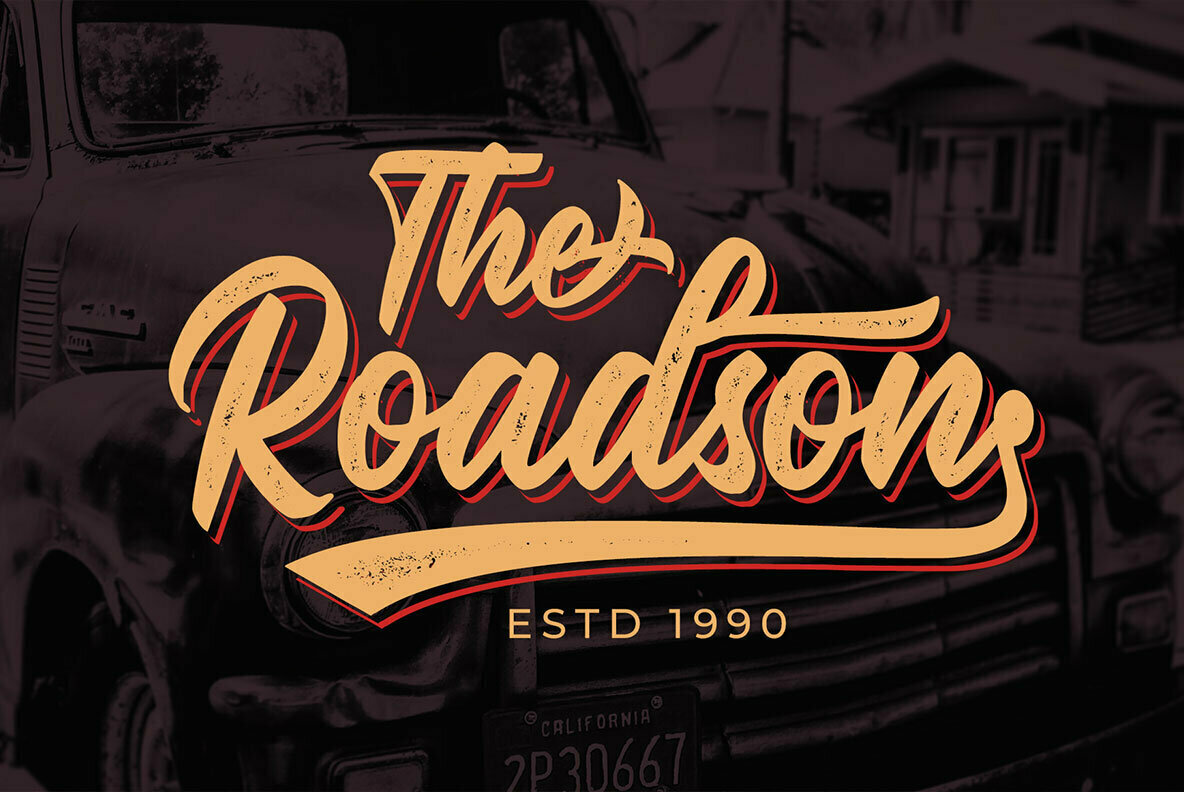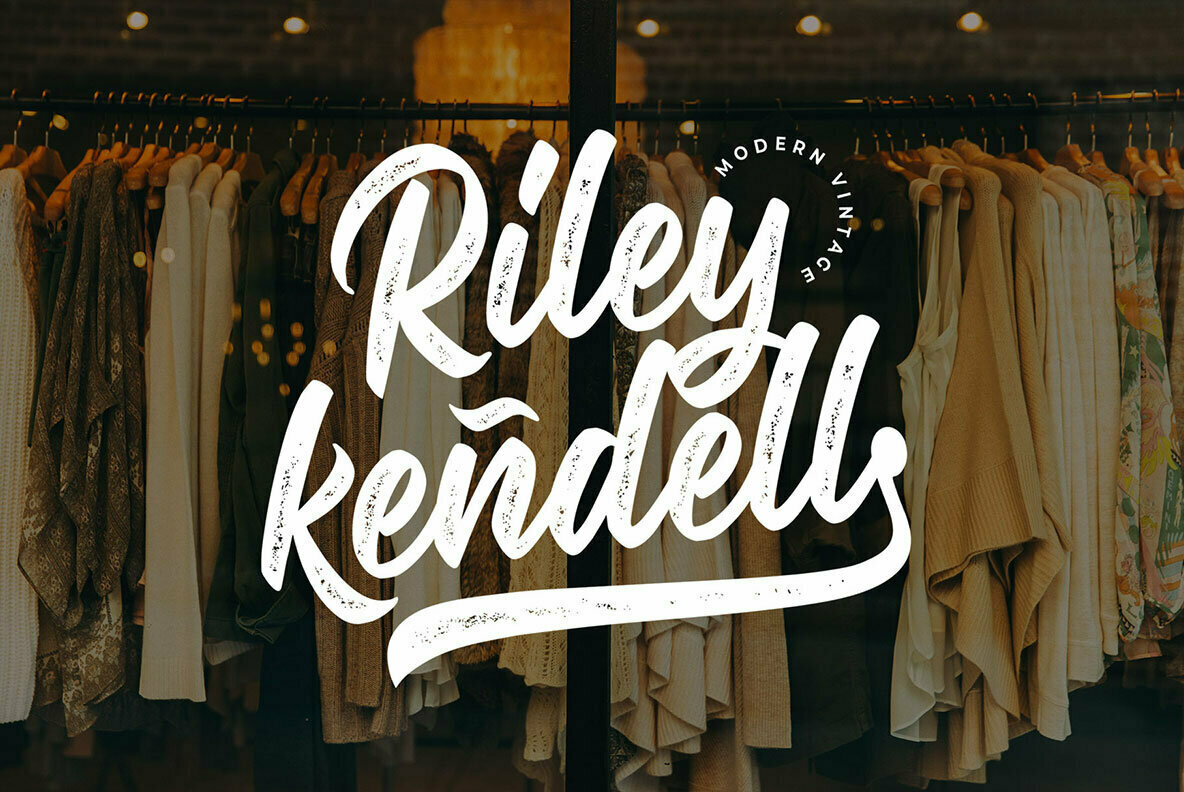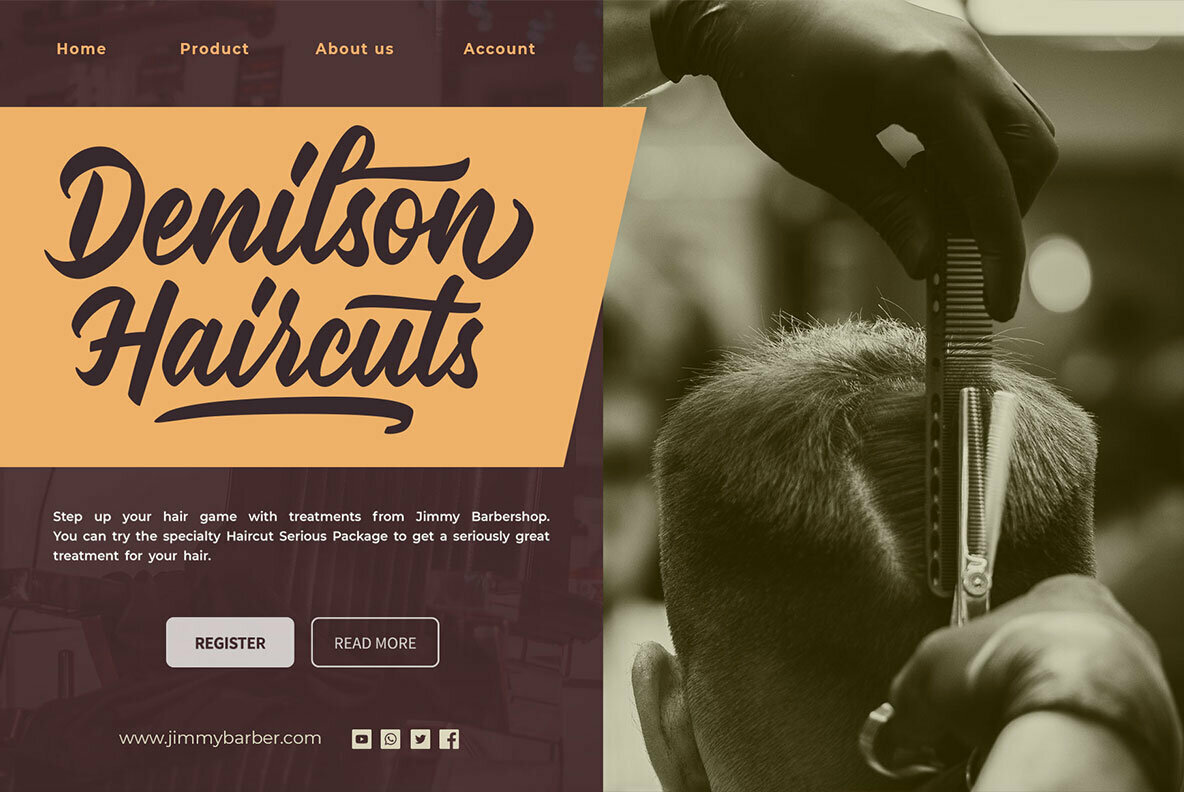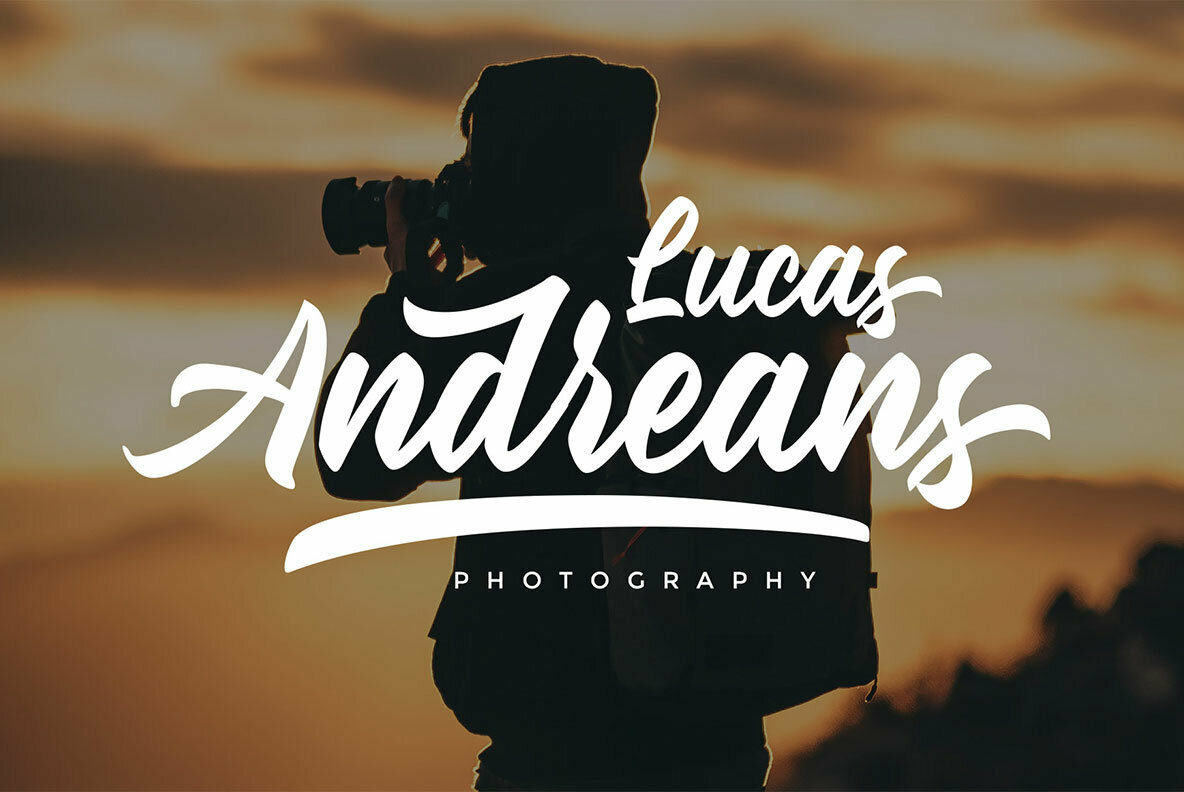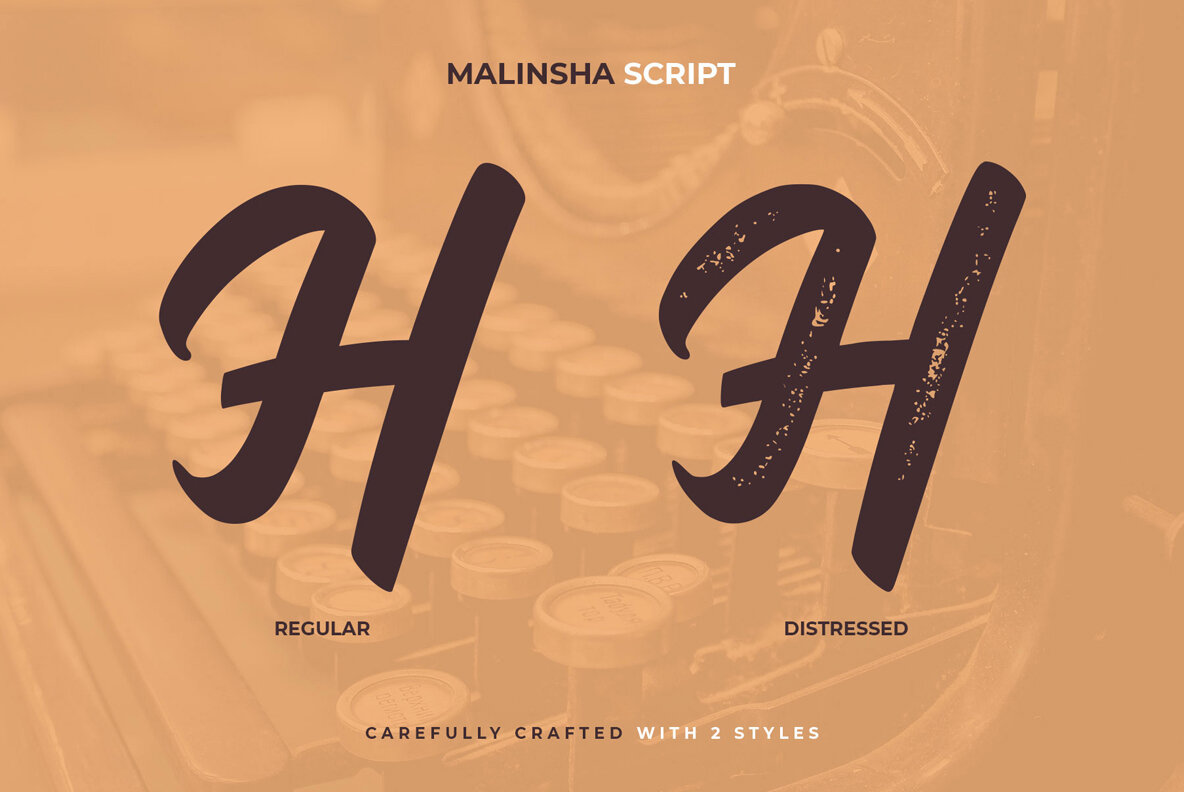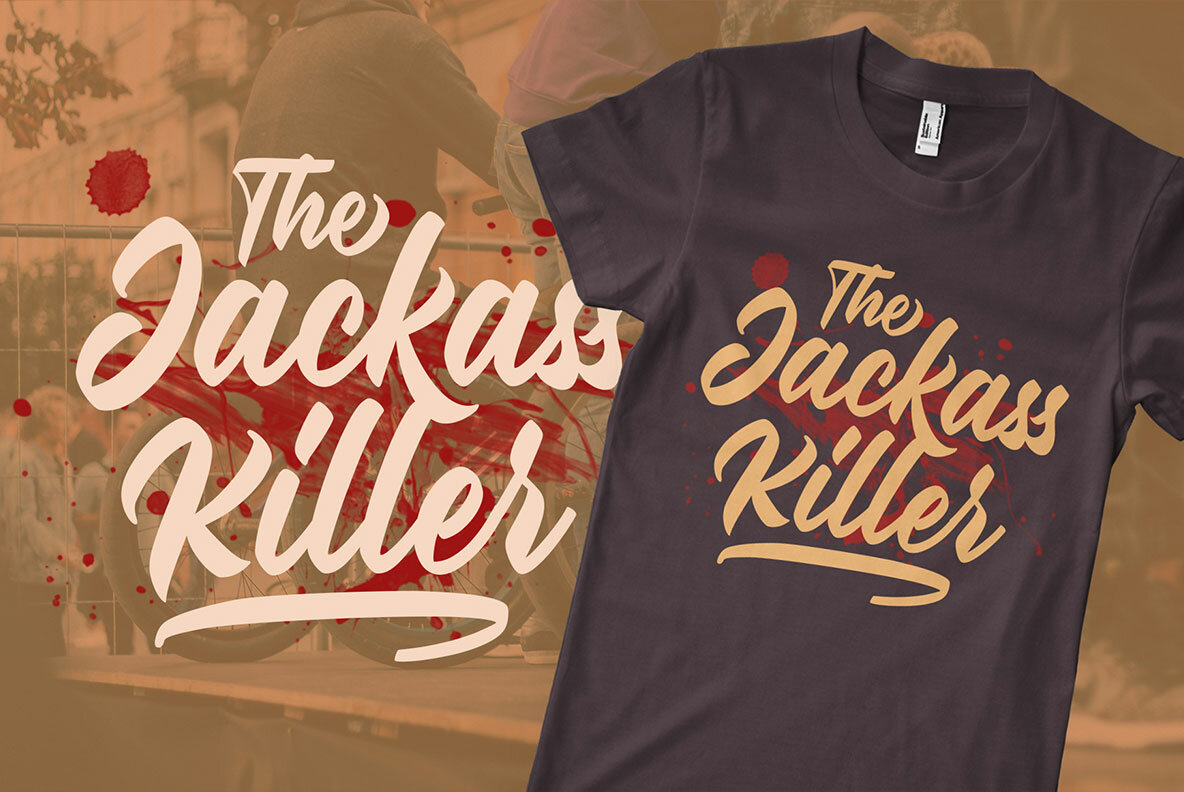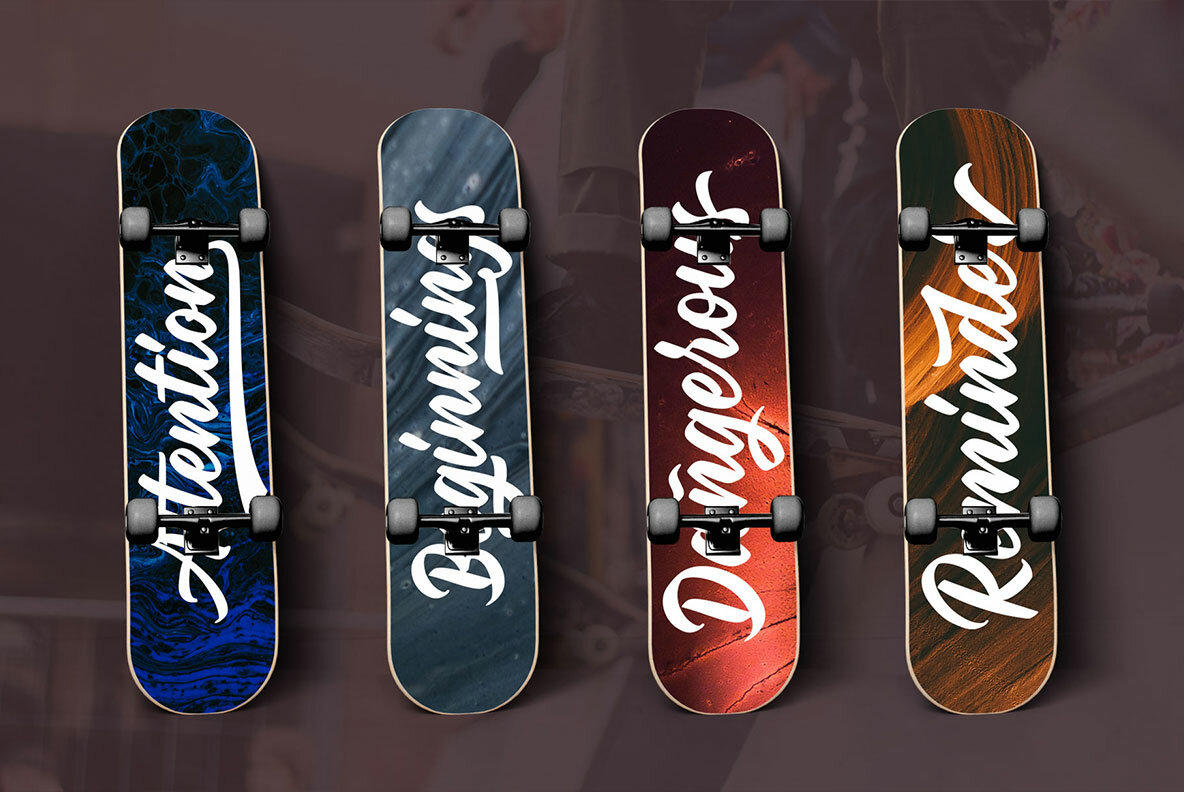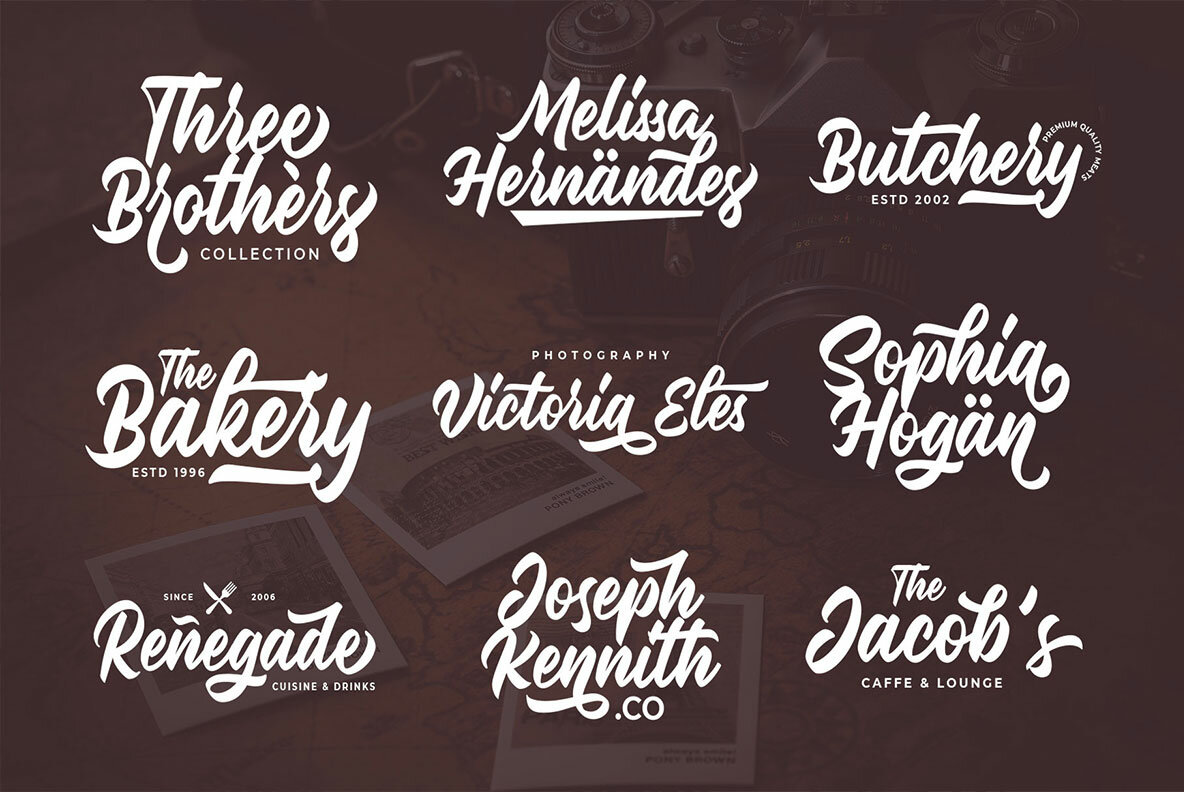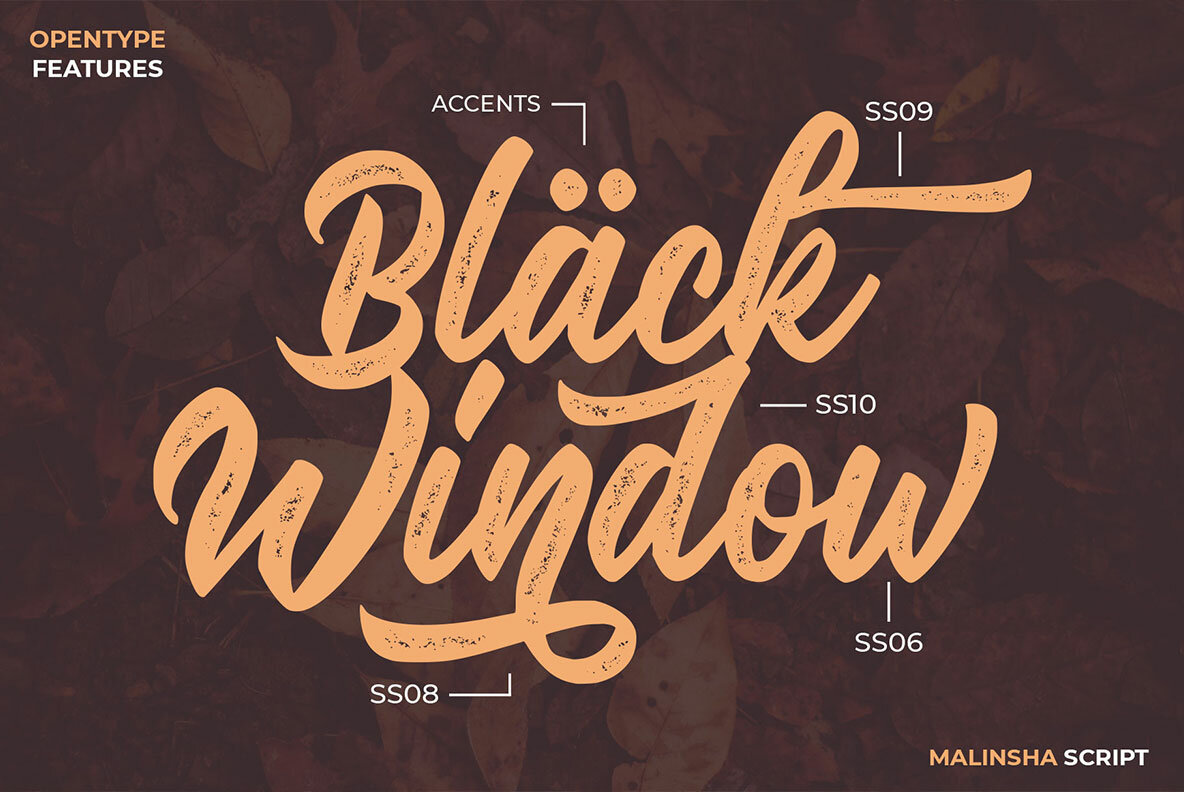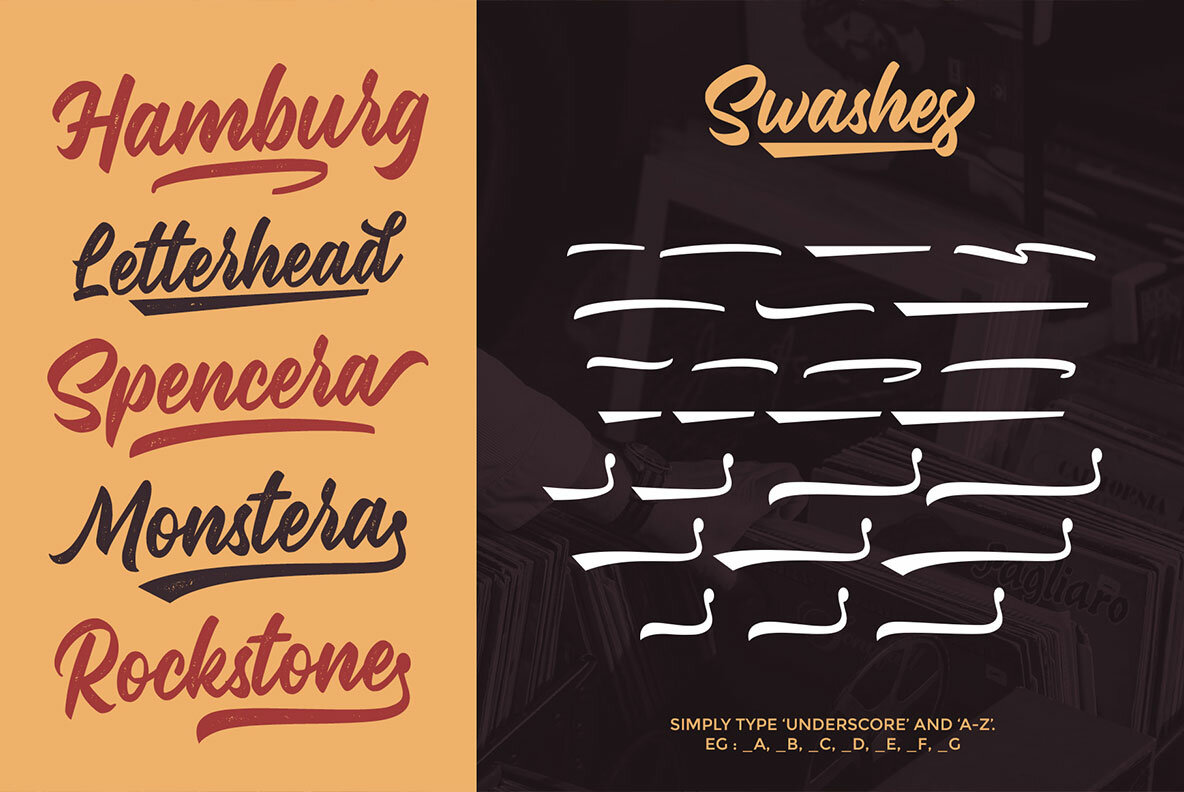
Melinsha Font
Melinsha offers a striking brush style derived from the beauty of hand-lettering. Drawing inspiration from retro signage and contemporary calligraphy, this font embodies boldness ideal for impactful displays. Melinsha is available in Regular and Distressed variants, allowing seamless adaptation to your creative themes. Crafted with an array of alternate characters, it optimizes the design process for typographic projects. Its applications range widely, from logos and apparel to signage and packaging.Melinsha: A Vintage Brush Excellence